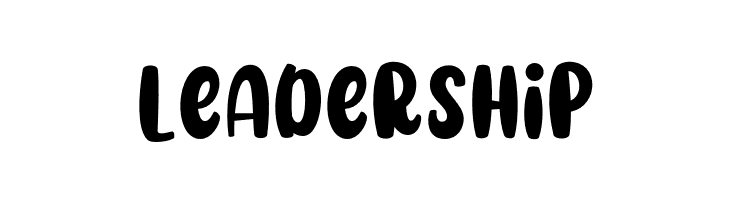
A bold, oblique, monospaced font with a modern and clean design.
A monospaced, oblique font with consistent stroke weight and clear readability.
A clean, modern sans-serif font with balanced proportions and excellent readability.
A bold, modern sans-serif font with clean lines and uniform width.
A bold, oblique font with a modern and dynamic style.
A modern sans-serif font with an oblique slant and medium contrast.
A classic serif typeface with elegant, traditional letterforms and moderate stroke contrast.
A bold, classic serif font with strong, authoritative characters.
A bold, italic serif font with a classic and elegant style.
An elegant serif font with an italic slant, offering a classic and sophisticated look.
A modern italic font with clean lines and smooth curves.
A bold, modern sans-serif font with clean lines and uniform strokes.
A modern, clean sans-serif typeface with excellent readability.
A playful, bold font with rounded edges and a friendly appearance.
A bold, hand-drawn font with a playful and energetic style.
A bold, distressed font with a rugged, geometric design.
A modern, geometric font with tall, narrow characters and a sleek design.
A tall, narrow font with a modern and sleek design, featuring consistent stroke width and sharp angles.
A geometric sans-serif font with clean lines and a modern aesthetic.
A clean, geometric font with a modern and balanced design.
A clean, geometric font with a modern and minimalistic style.
A modern, geometric font with clean lines and a minimalist style.
A playful and irregular font with bold, quirky letterforms and a hand-drawn feel.
A clean, modern sans-serif font with geometric influences and excellent readability.
A modern, geometric sans-serif font with clean lines and uniform stroke width.
A modern, geometric sans-serif font with a condensed and uniform design.
A bold, geometric font with strong, angular lines and a modern aesthetic.
A bold, geometric font with a modern and assertive style.
A bold, italicized font with a modern, dynamic style and angular design.